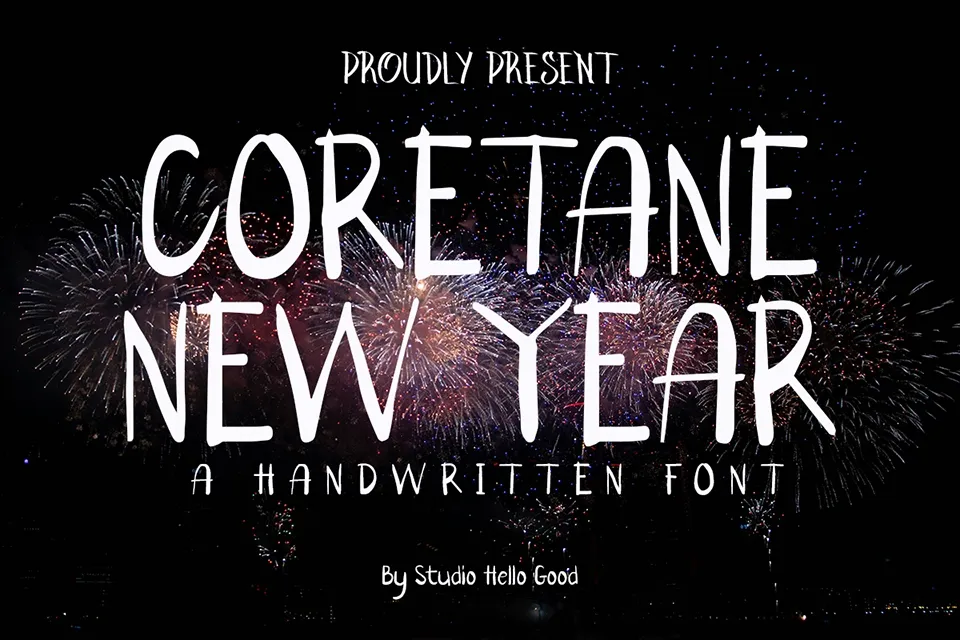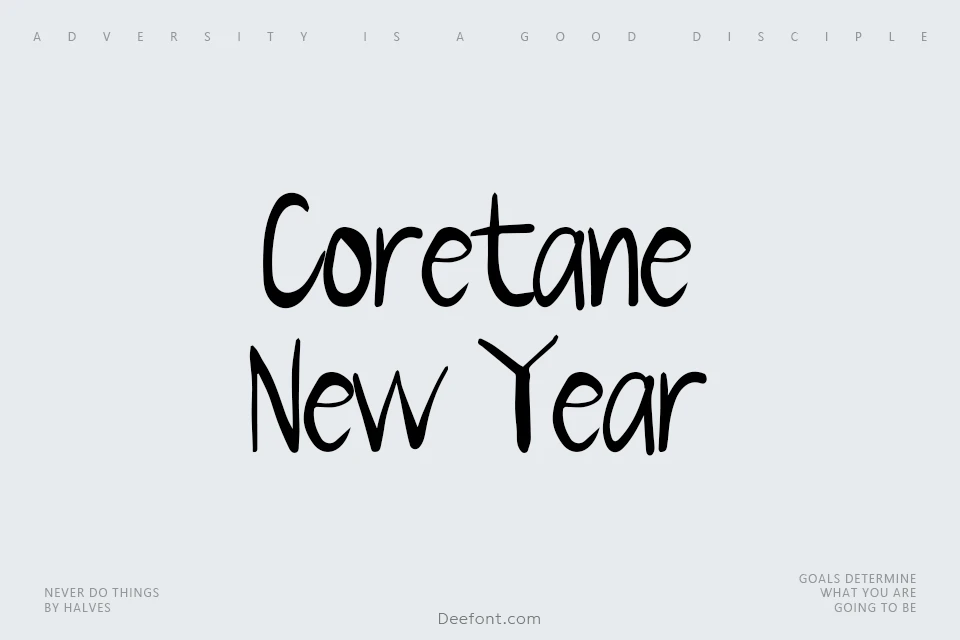
Coretane New Year Font
Coretane New Year Font is a playful handwritten display typeface designed to bring a festive and casual touch to your creative projects. Its unique, hand-drawn style makes it perfect for celebratory designs, invitations, posters, and any work that needs a lively, personal feel.